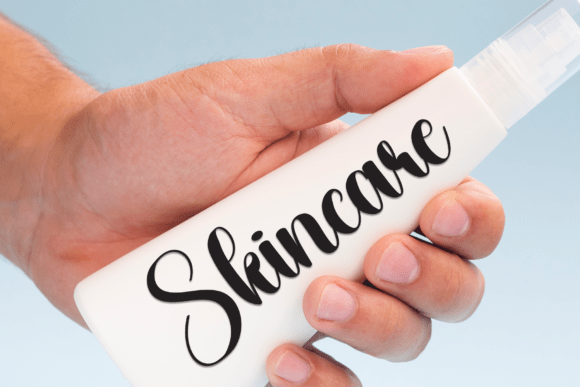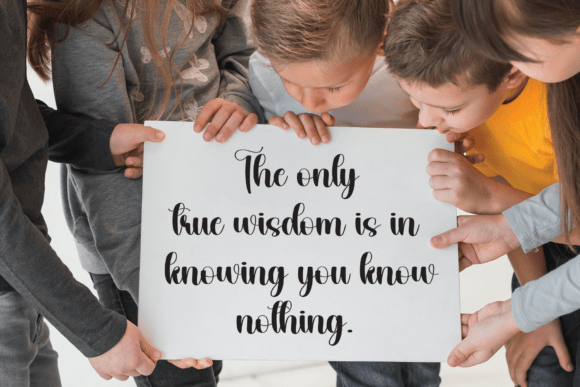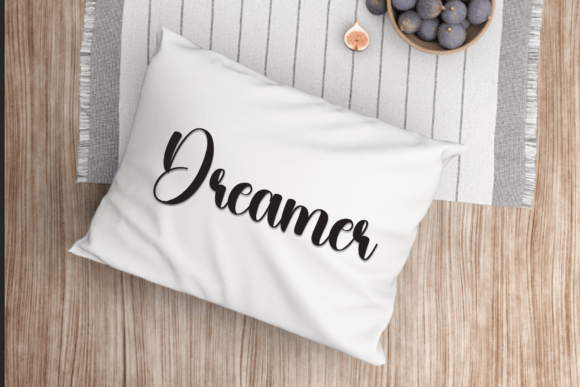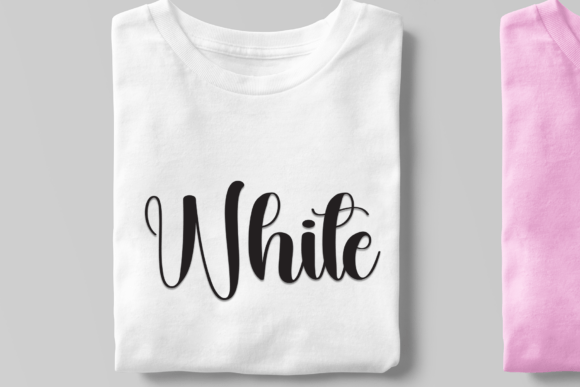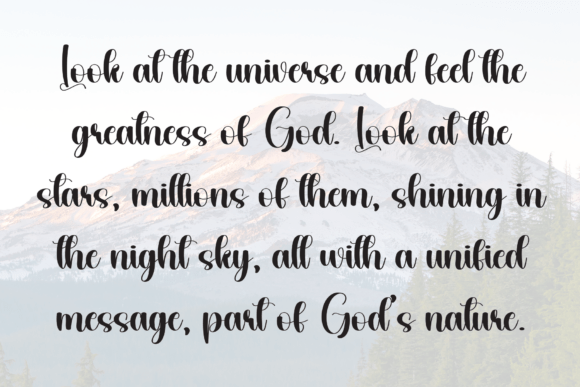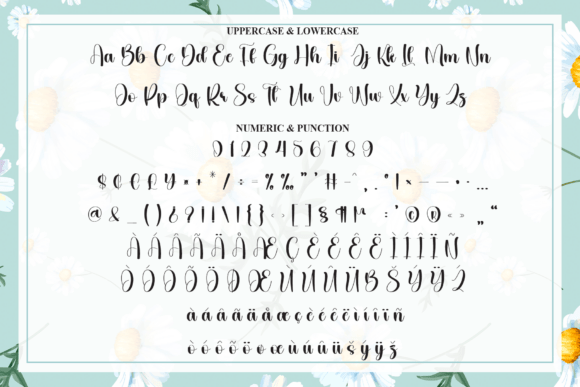
The Elegance of Daisy Notebook Font: A Designer’s Delight
I’ll never forget the time I was working on a wedding invitation project, and my client asked for a font that was both elegant and modern. I scoured the internet, tried out countless fonts, but nothing seemed quite right. That was until I stumbled upon Daisy Notebook Font. It was love at first sight! 💕 The fluid curves, the graceful strokes, and the polished details all came together to create a font that was both refined and sophisticated. In this article, I’ll share my experience with Daisy Notebook Font, and explore its features, uses, and alternatives.
As a designer, I’m always on the lookout for fonts that can elevate my projects. Here’s what I love about Daisy Notebook Font:
- ✨ Elegant and modern design that works well for logos, invitations, and social media graphics
- ✅ Highly versatile and adaptable to different design contexts
- 💫 Beautifully crafted letterforms with a natural flow
- 🎨 Great for creating a refined and sophisticated visual identity
Of course, no font is perfect, and there are a few quirks to be aware of:
- 🤔 Some users may find the font a bit too delicate for certain design applications
- ⚠️ Limited availability of certain OpenType features in certain software
The Story Behind Daisy Notebook Font
Daisy Notebook Font was designed with the intention of capturing the beauty of hand-drawn calligraphy with a modern twist. The designer, inspired by the elegance of traditional notebooks, set out to create a font that was both refined and contemporary. Through careful craftsmanship and attention to detail, Daisy Notebook Font was born – a font that exudes sophistication and style.
| What is Daisy Notebook Font best used for? | Daisy Notebook Font is ideal for logos, invitations, packaging, and social media graphics, where a refined and sophisticated look is desired. |
| Is Daisy Notebook Font suitable for body text? | While Daisy Notebook Font is beautiful, it’s best used for headlines and titles. For body text, a clearer font may be more suitable. |
| Does Daisy Notebook Font have OpenType features? | Yes, Daisy Notebook Font features a range of OpenType features, including glyphs and stylistic alternates, which can be accessed in compatible software. |